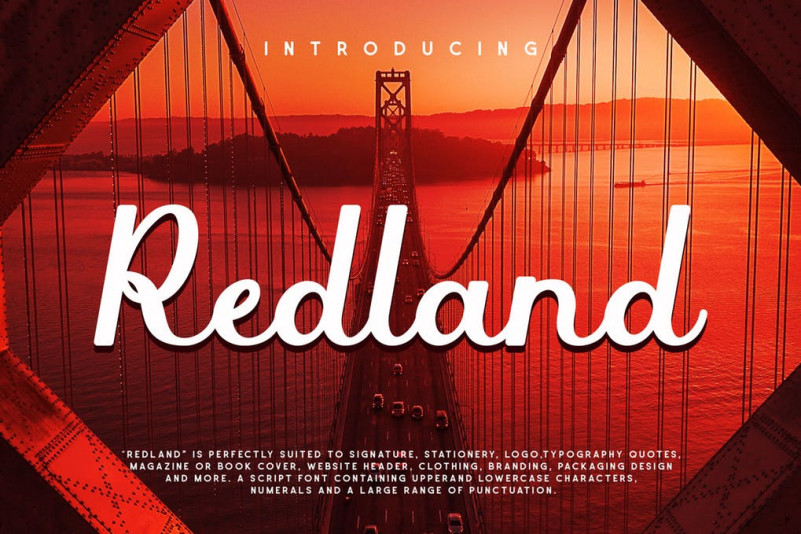
Redland Font
Are you looking for a simple and elegant handwriting font that has a bold feeling in it? We can help! Try to download our Redland font. “Redland” is perfectly suited to signature, stationery, logo,typography quotes, magazine or book cover, website header, clothing, branding, packaging design and more. A script font containing upperand lowercase characters, numerals and a large range of punctuation.:)